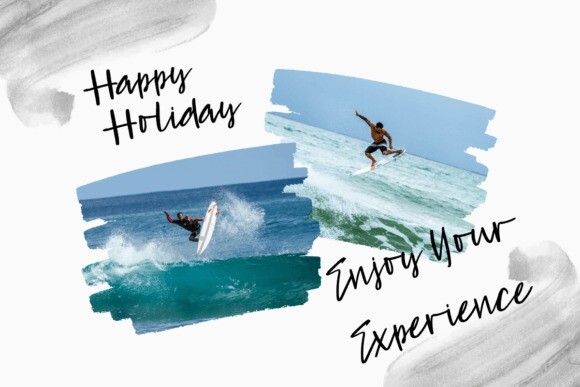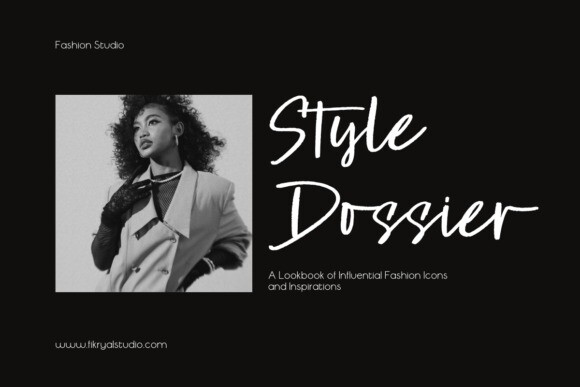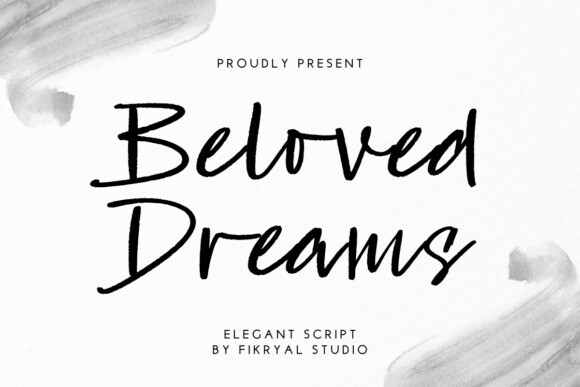
Beloved Dreams Font
Beloved Dreams Font is an elegant script font with a natural handwritten feel, suitable for a variety of creative projects including invitations, greeting cards and branding. The design combines classic beauty with a modern feel making it perfect for cosmetic brands and other branding needs. Each character is rendered in high detail for optimal readability and captivating visual appeal.